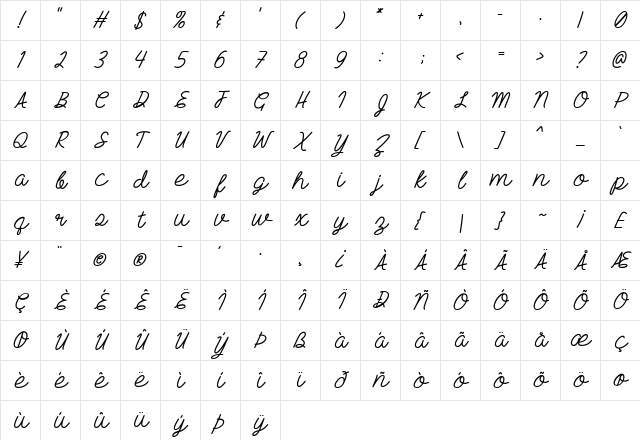
Complete End of the dream Regular glyph index. Displaying only characters natively supported by End of the dream Regular font.
End of the dream is a composed and adaptable typeface that performs quietly and consistently across a wide range of design contexts.
Who designed the End of the dream Regular font?